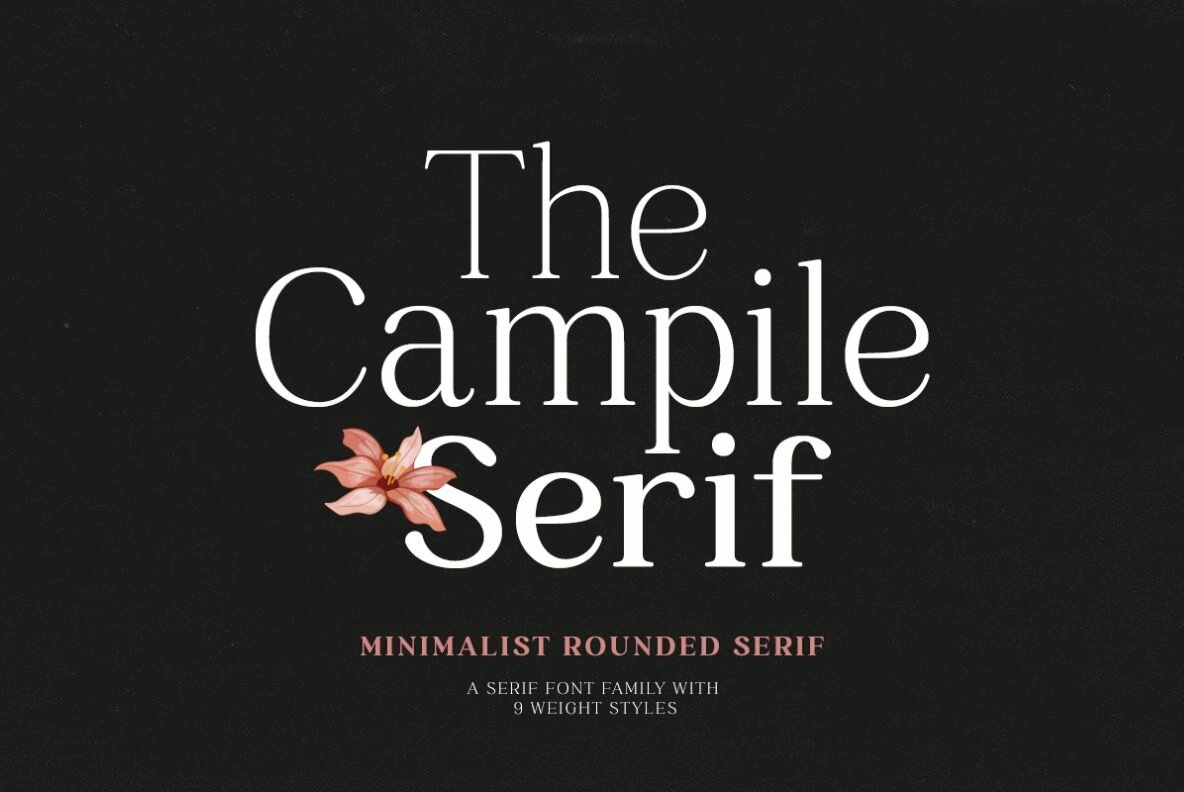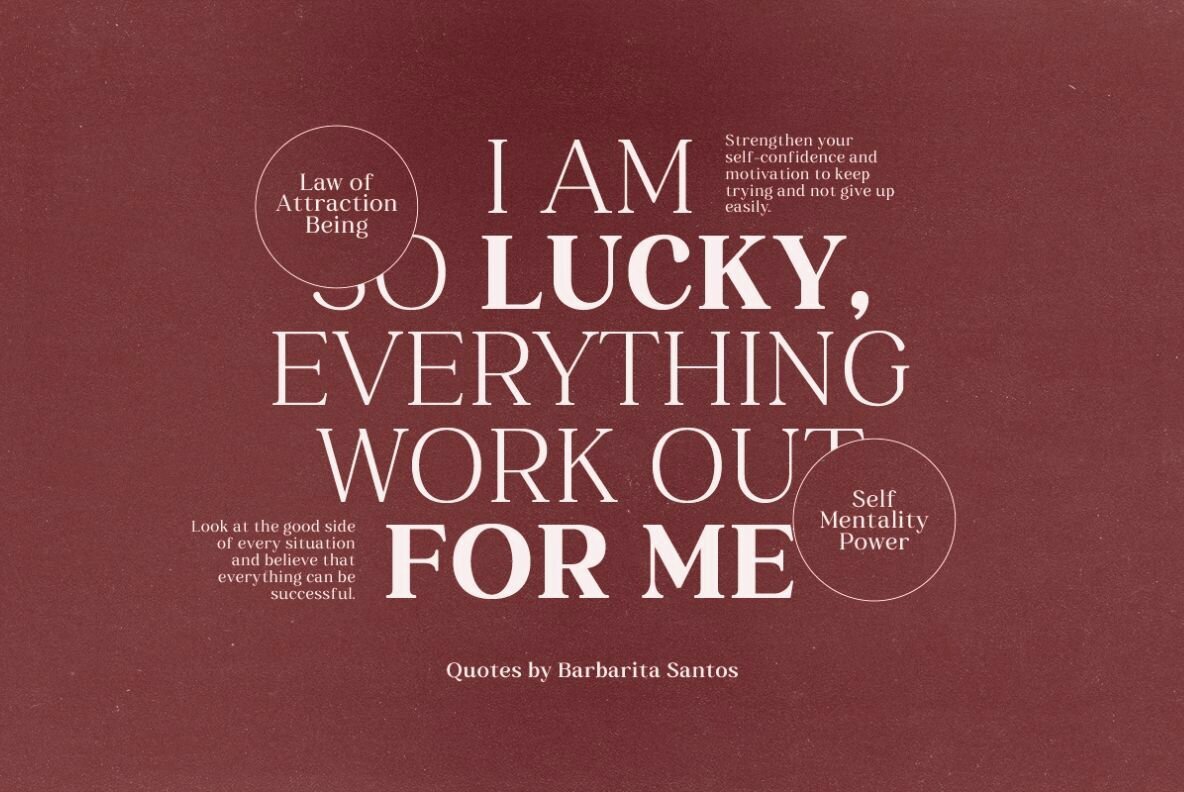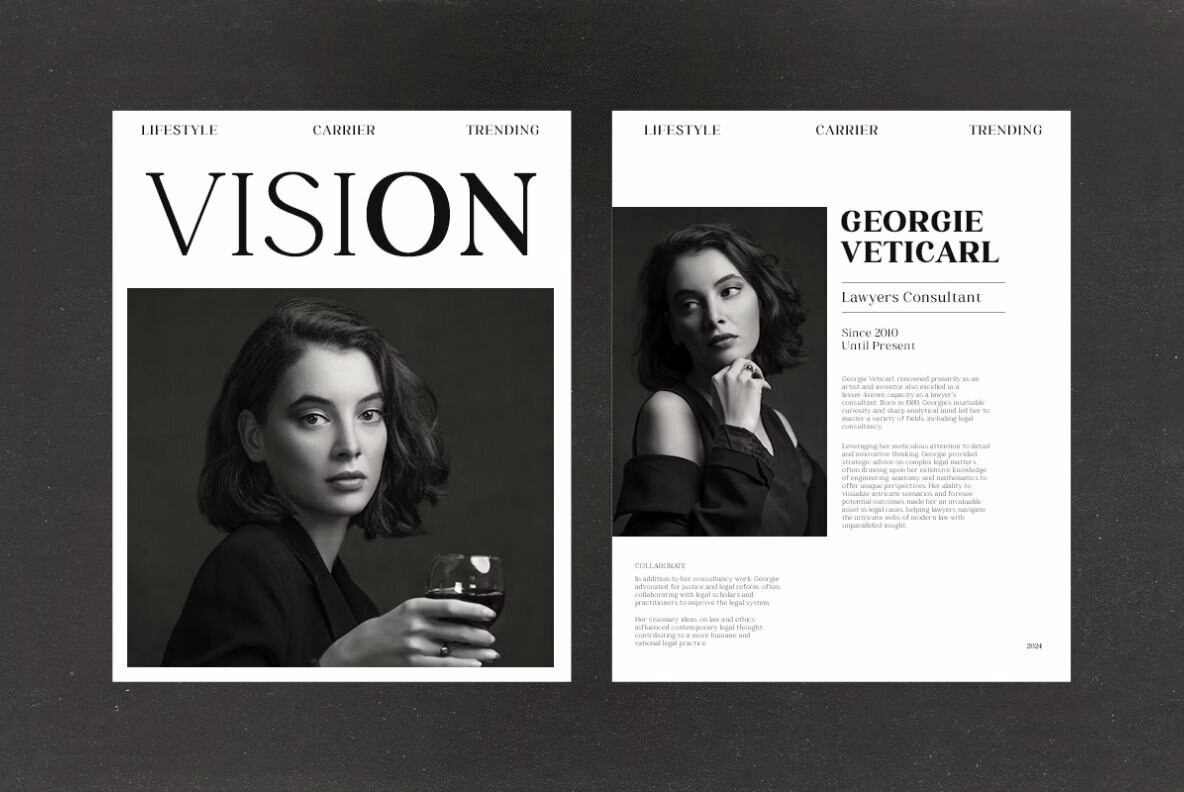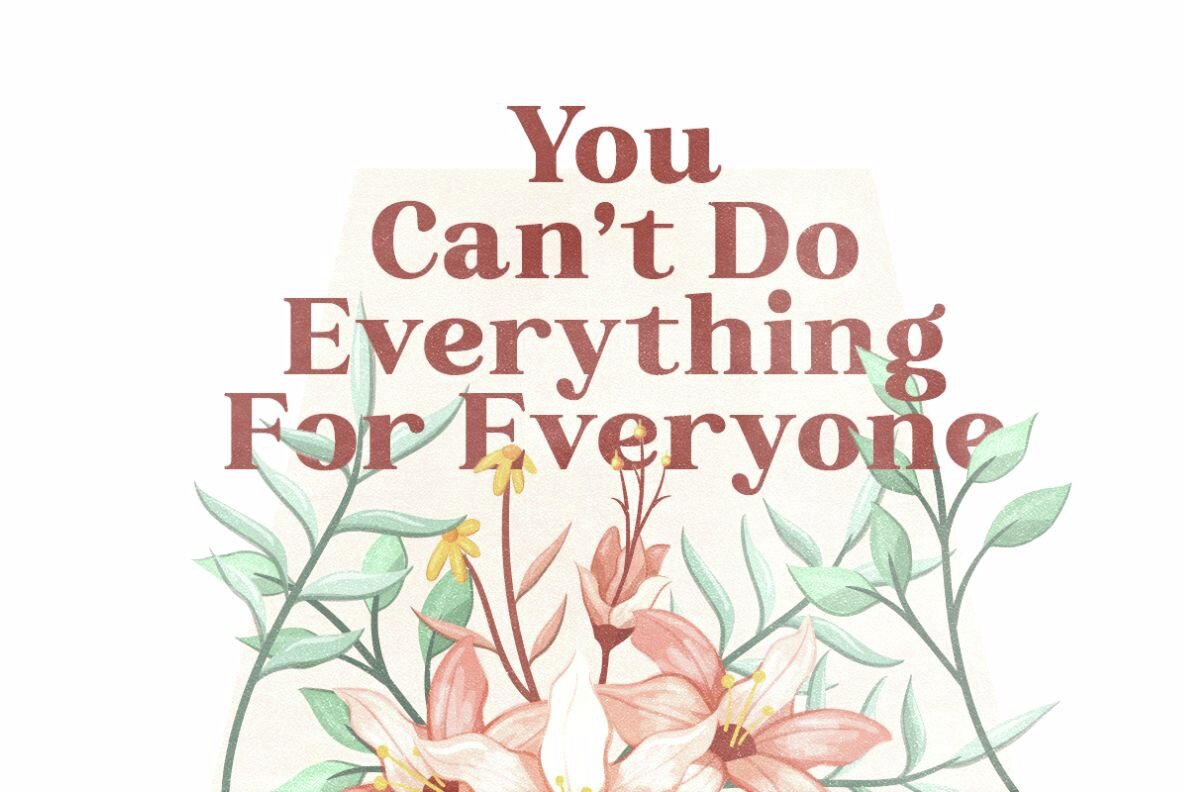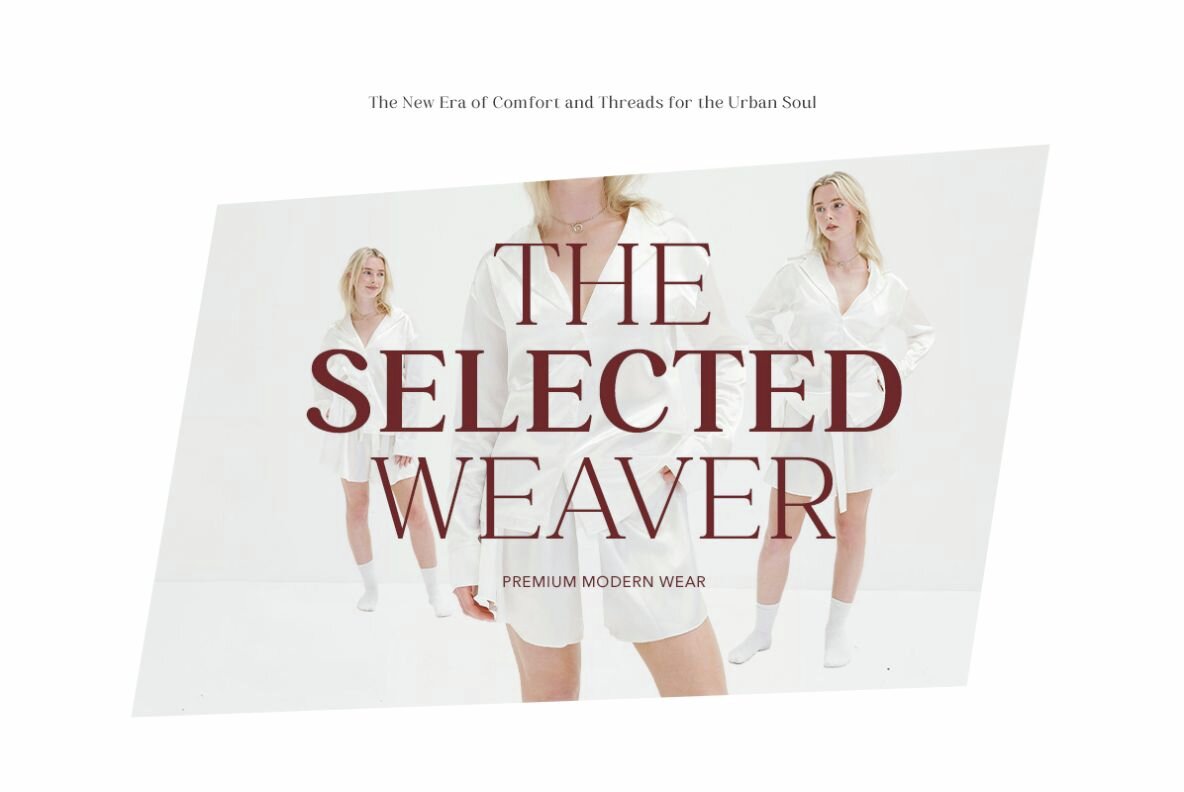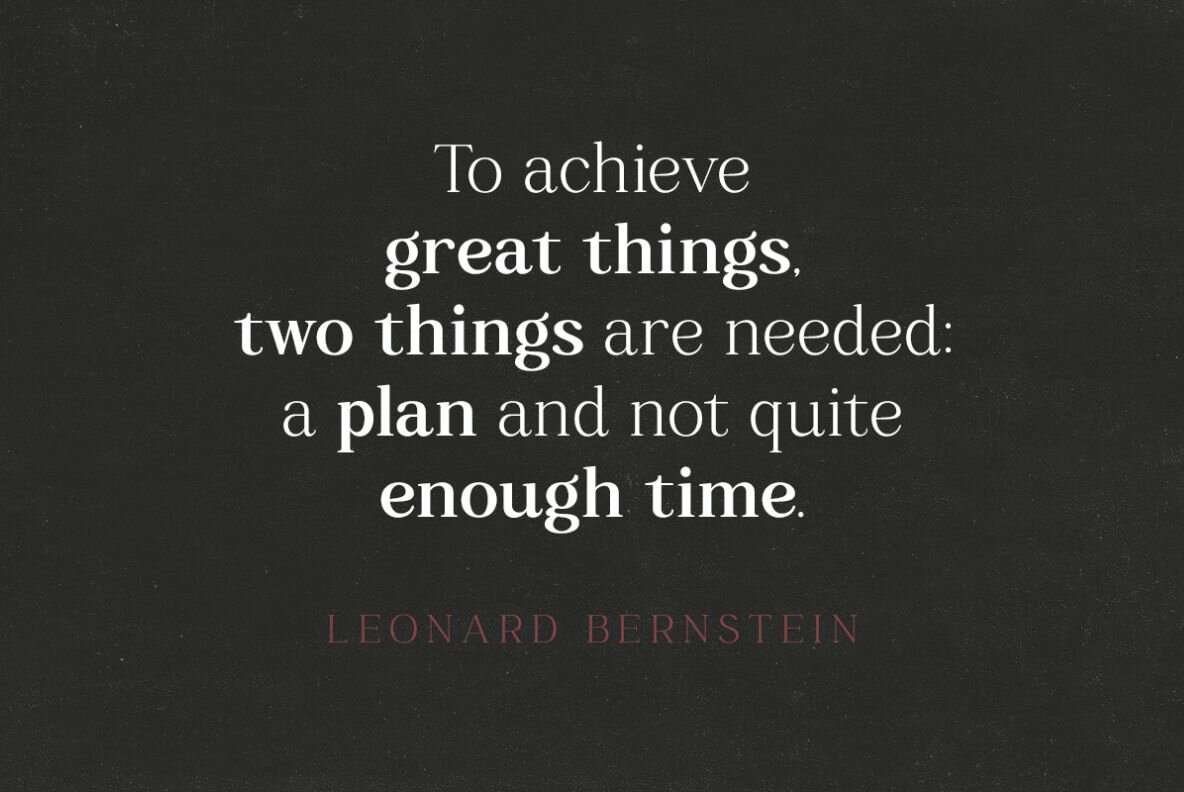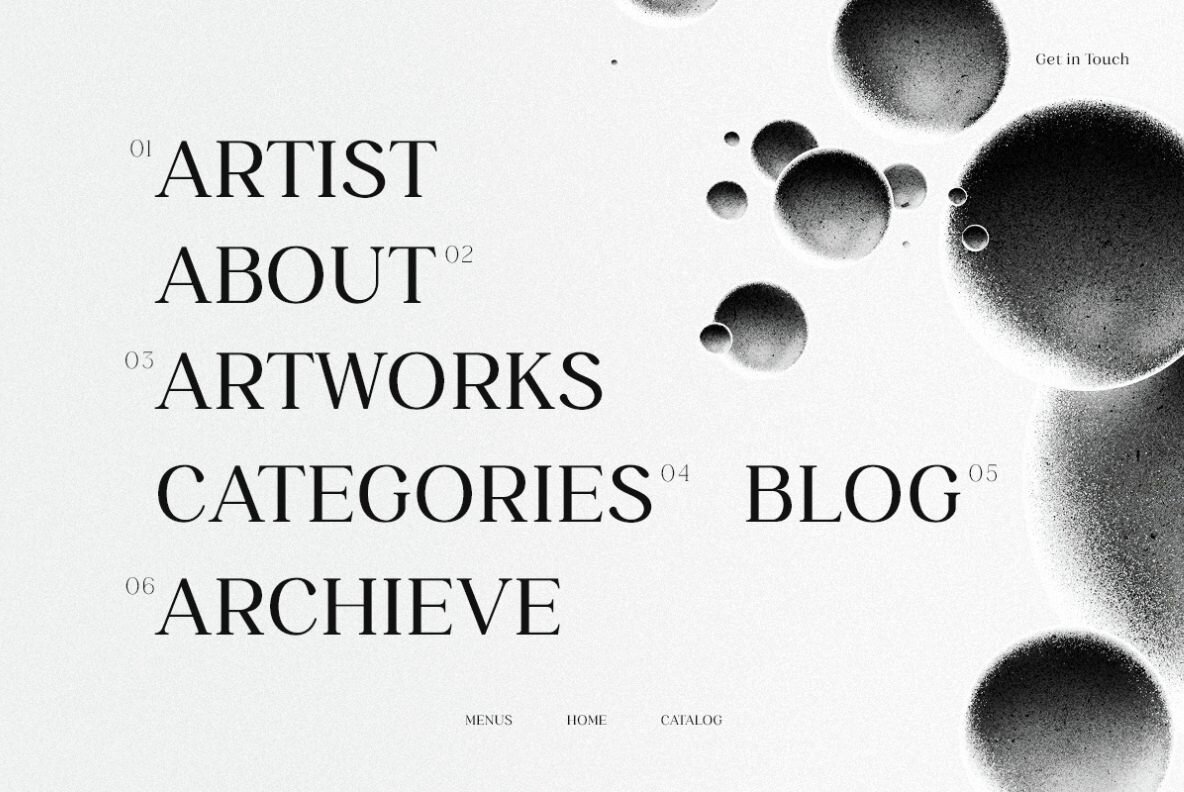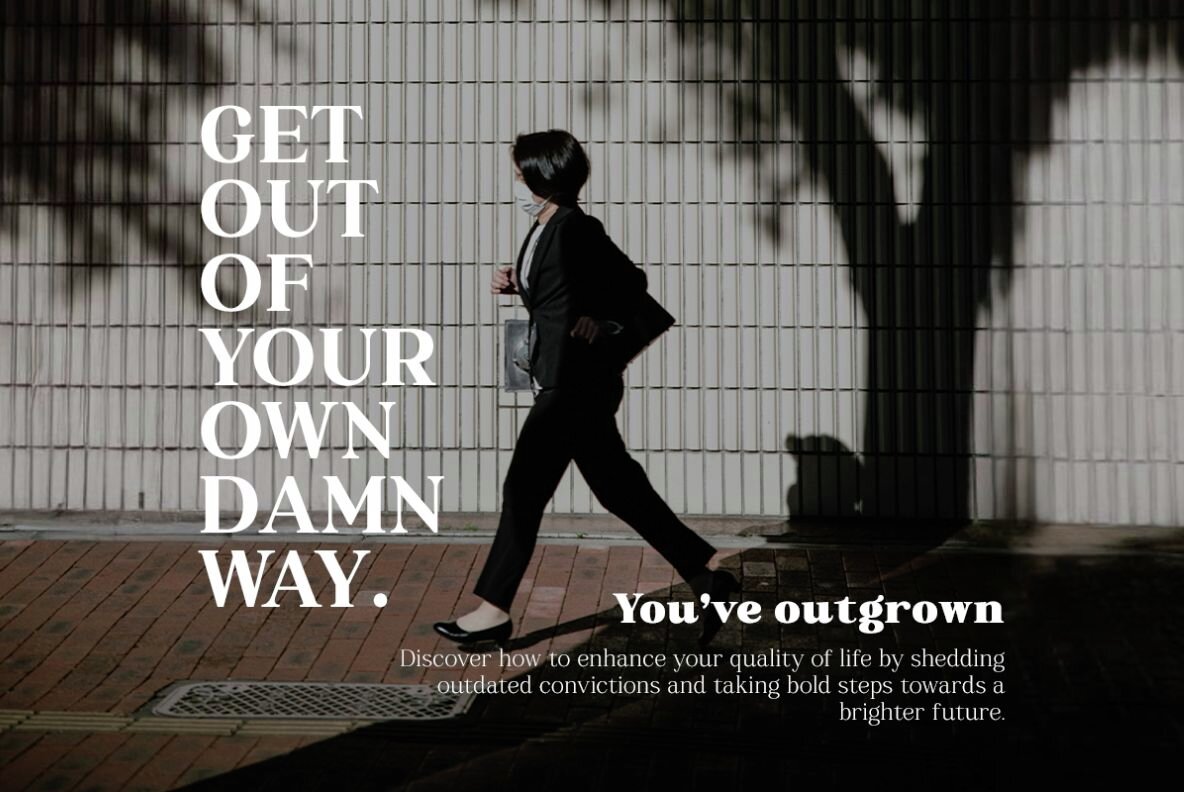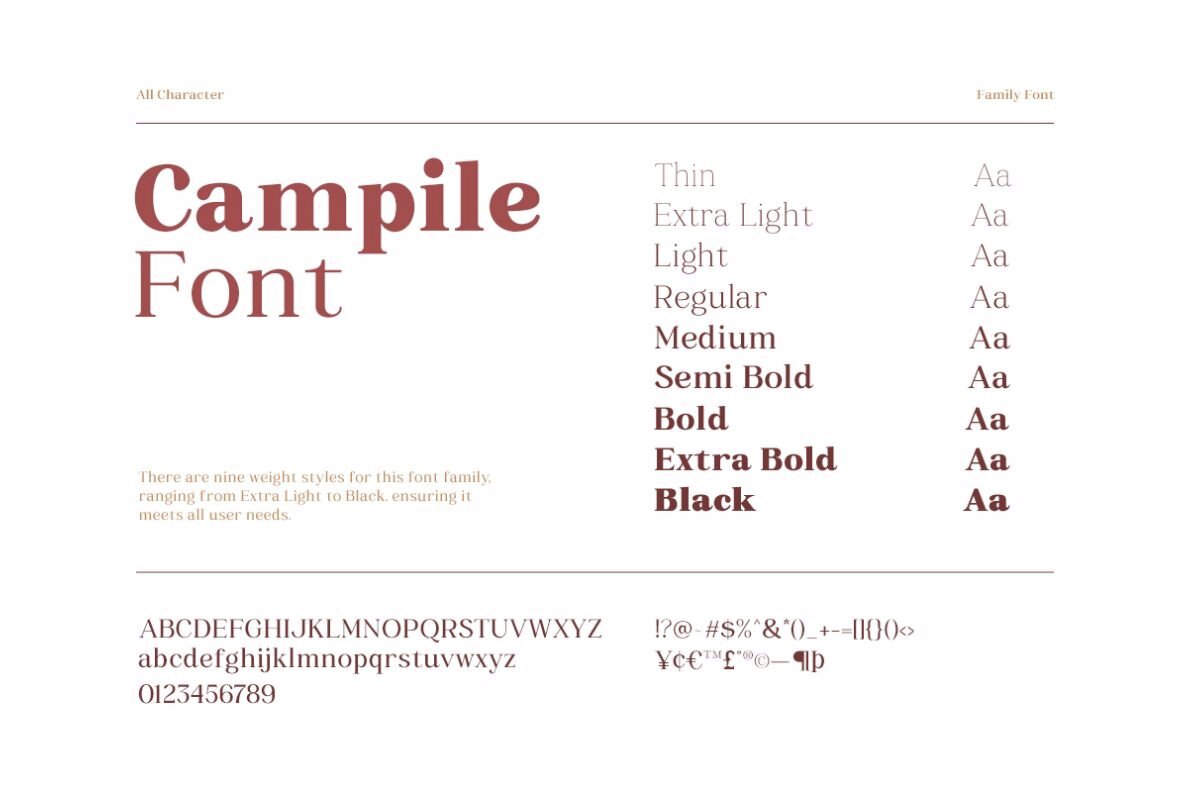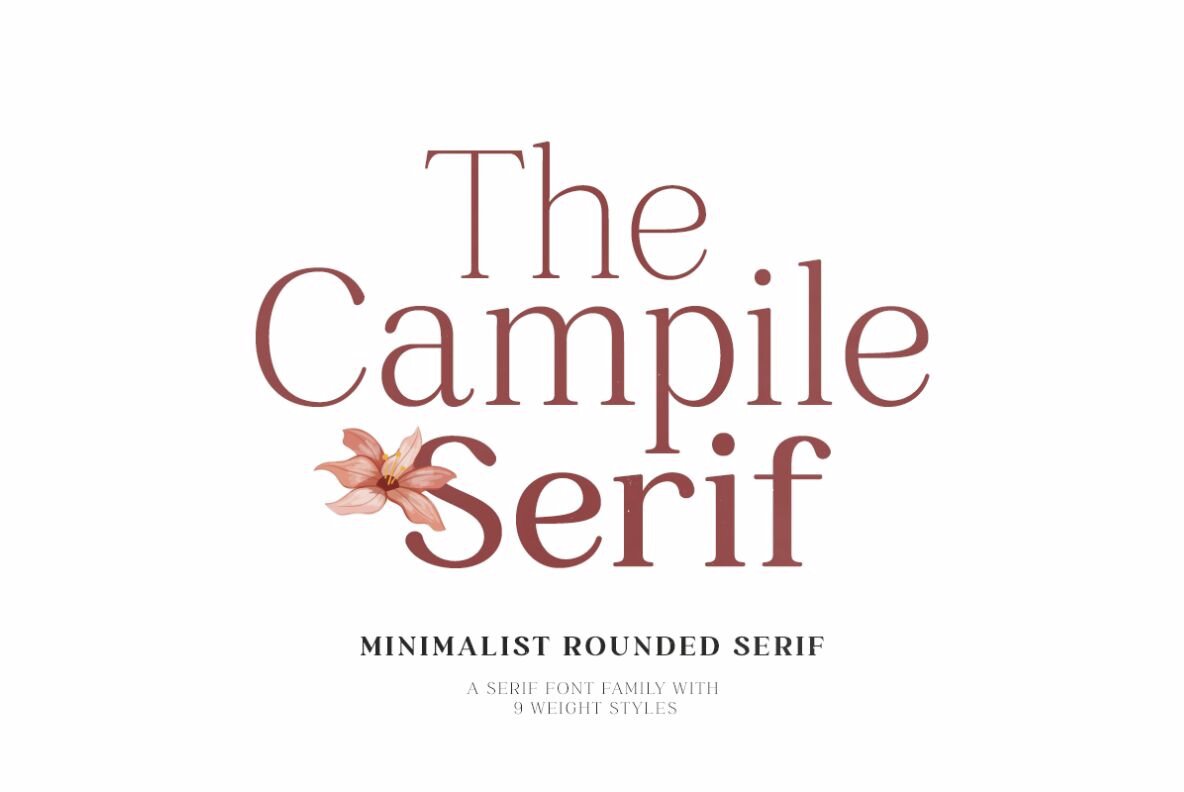
Campile Font
Campile is a rounded serif font family with stylish and minimalist looks. With 9 weight including thin, extralight, light, regular, medium, semi bold, bold, extra bold, and black that you can choose that suitable for your project. You can use the light and regular for clean and minimalist looks or bold and extra bold for strong impressions. You also can combine the weight styles that will make your design more stunning. This font also support multi language.